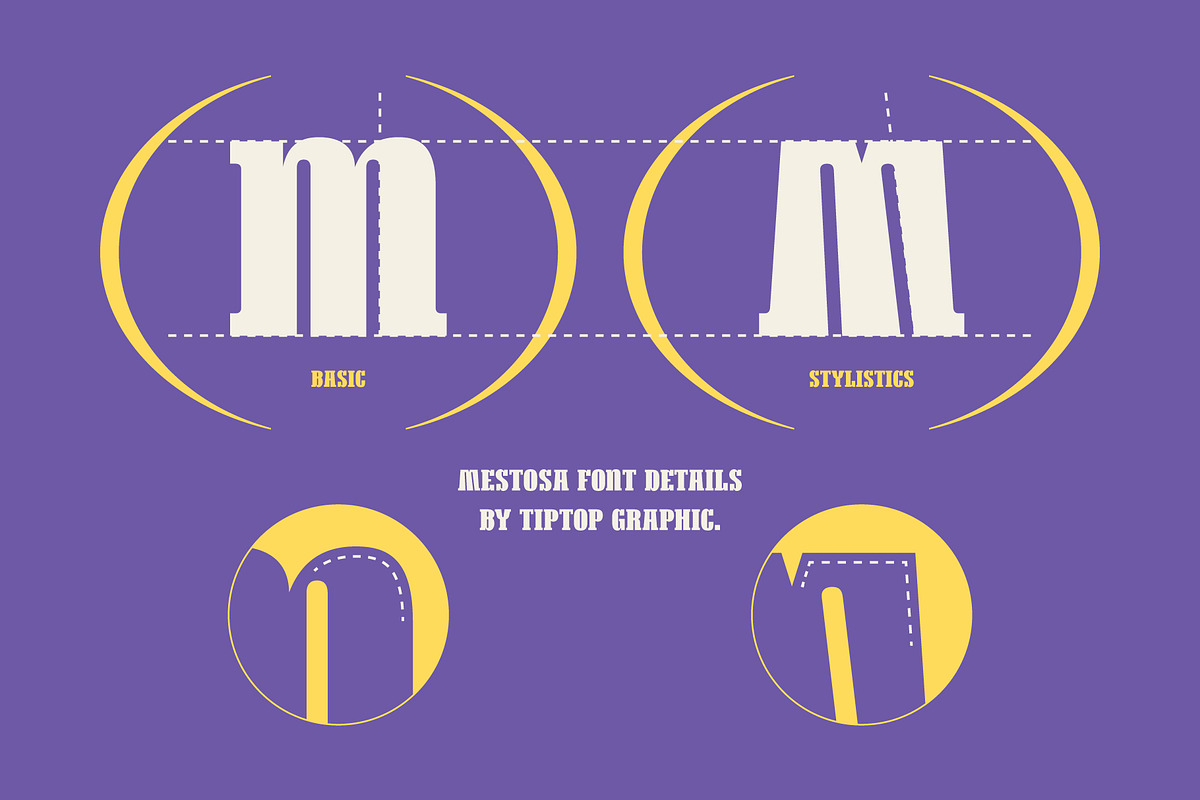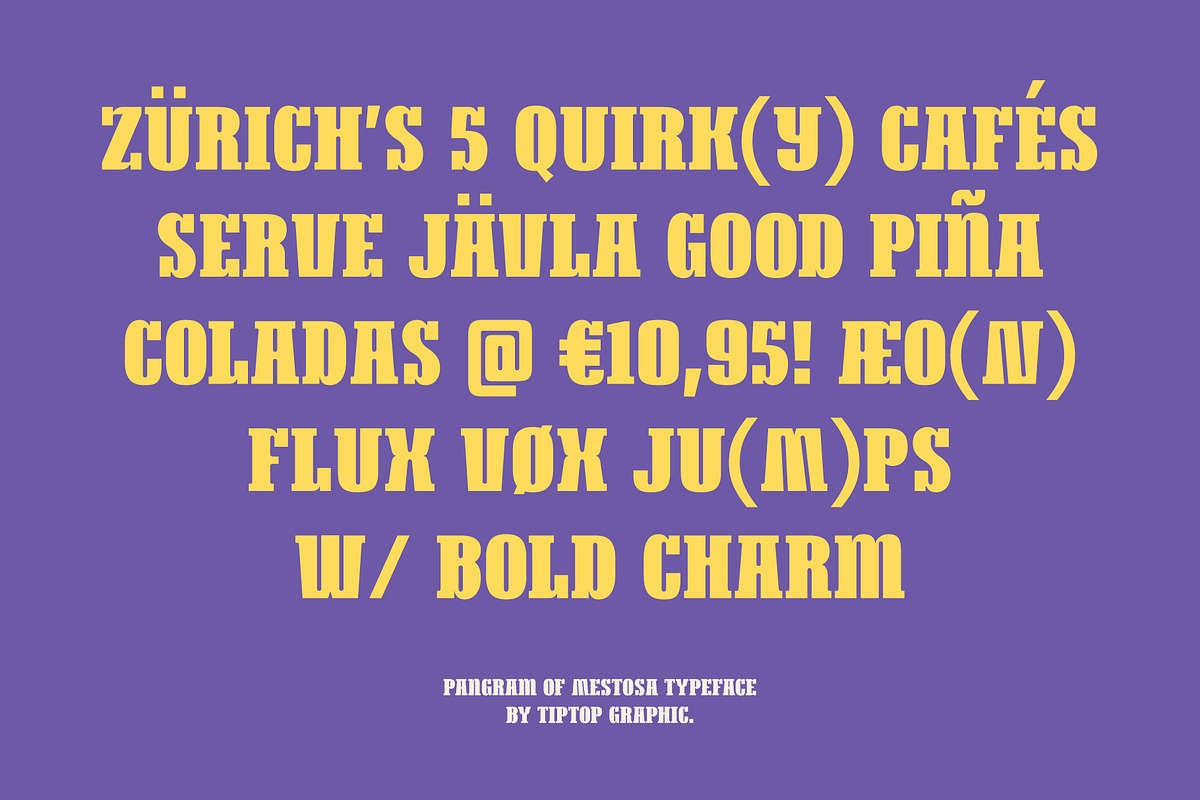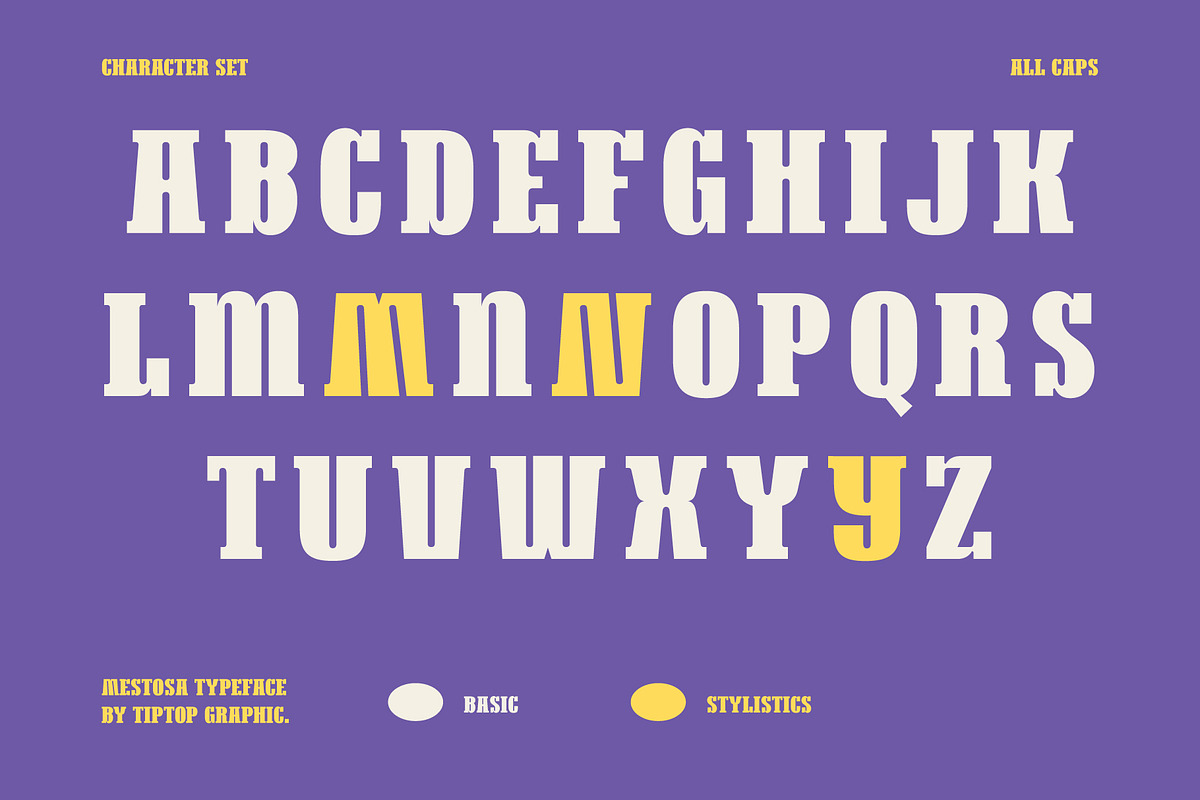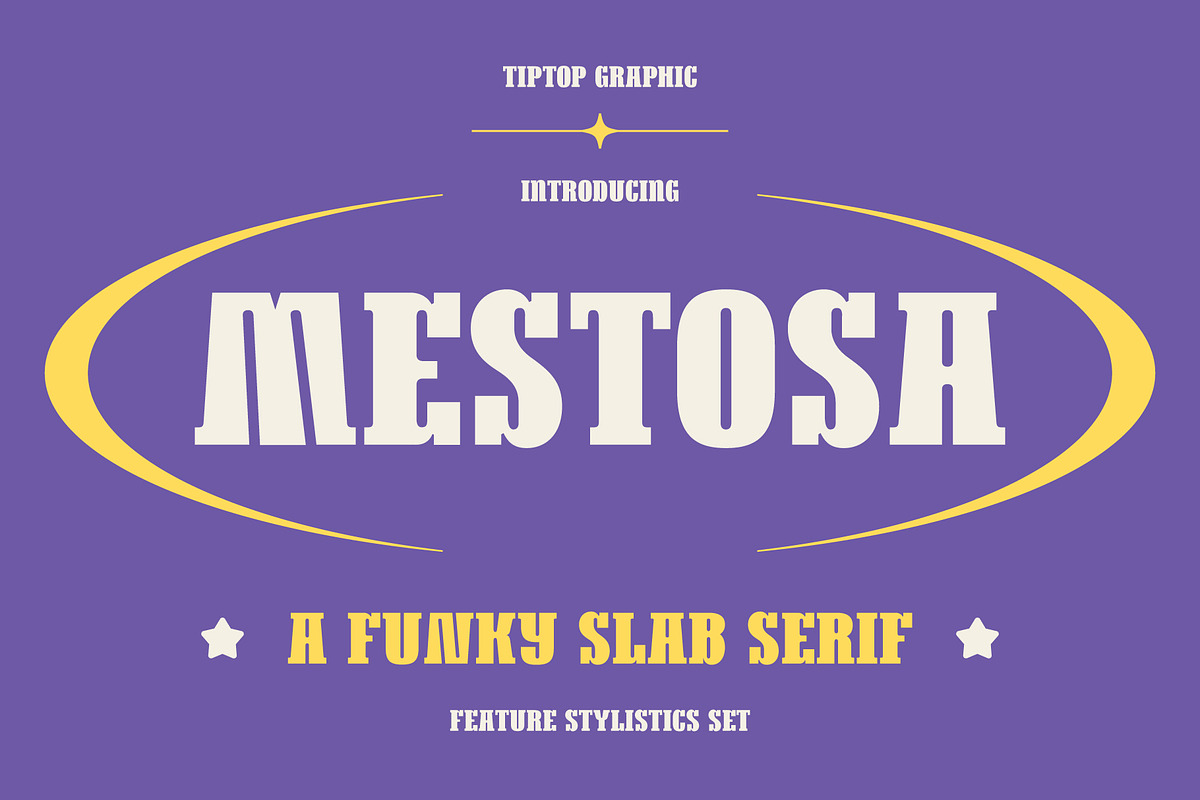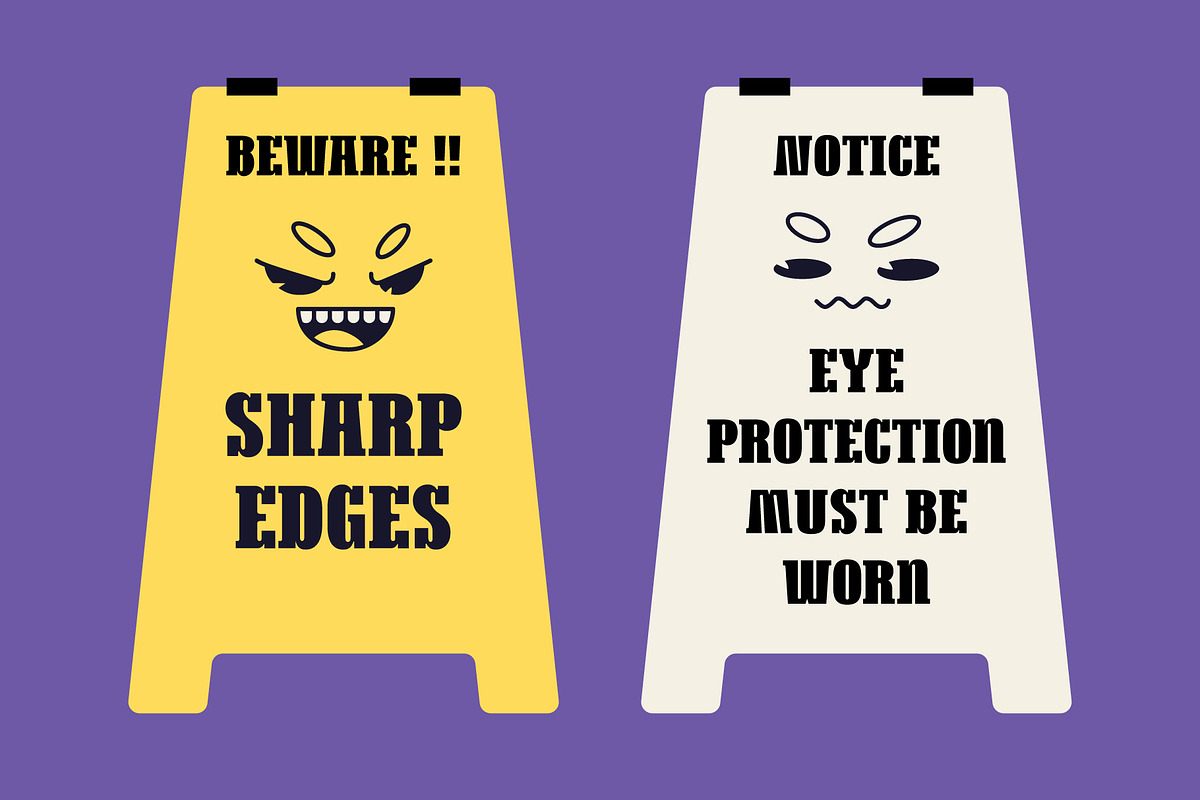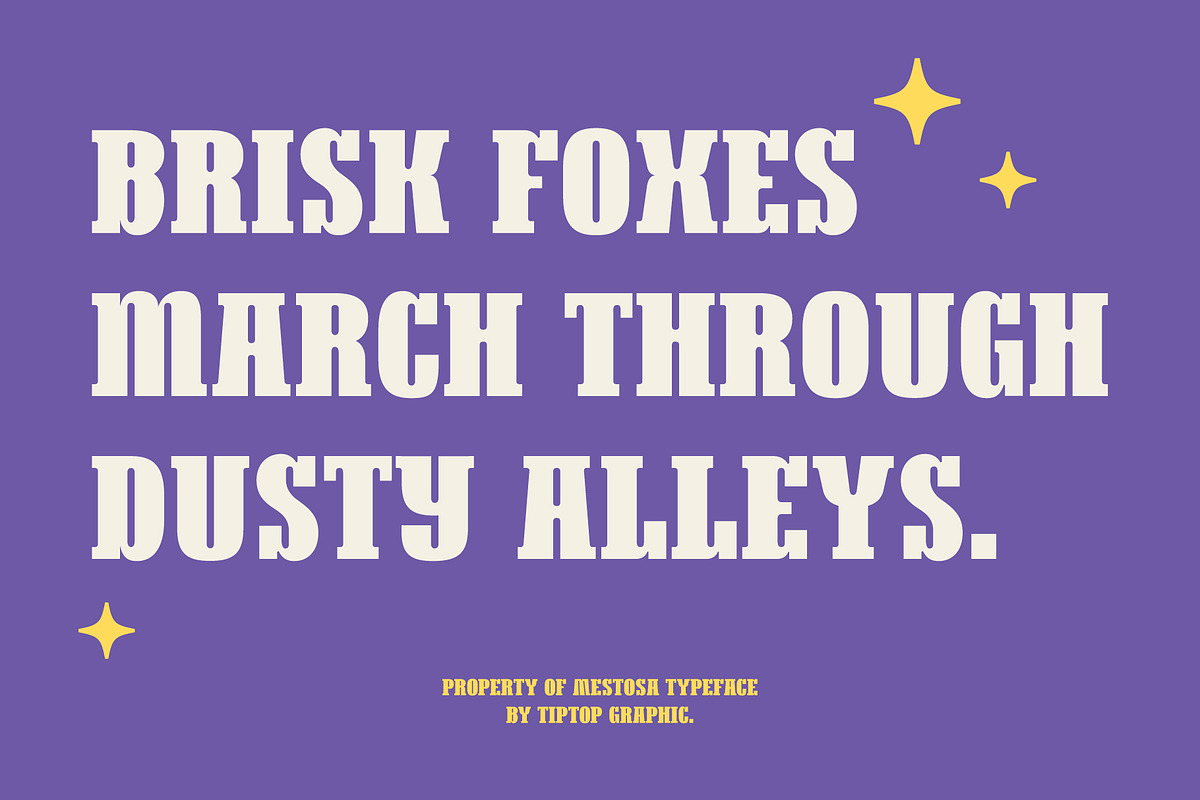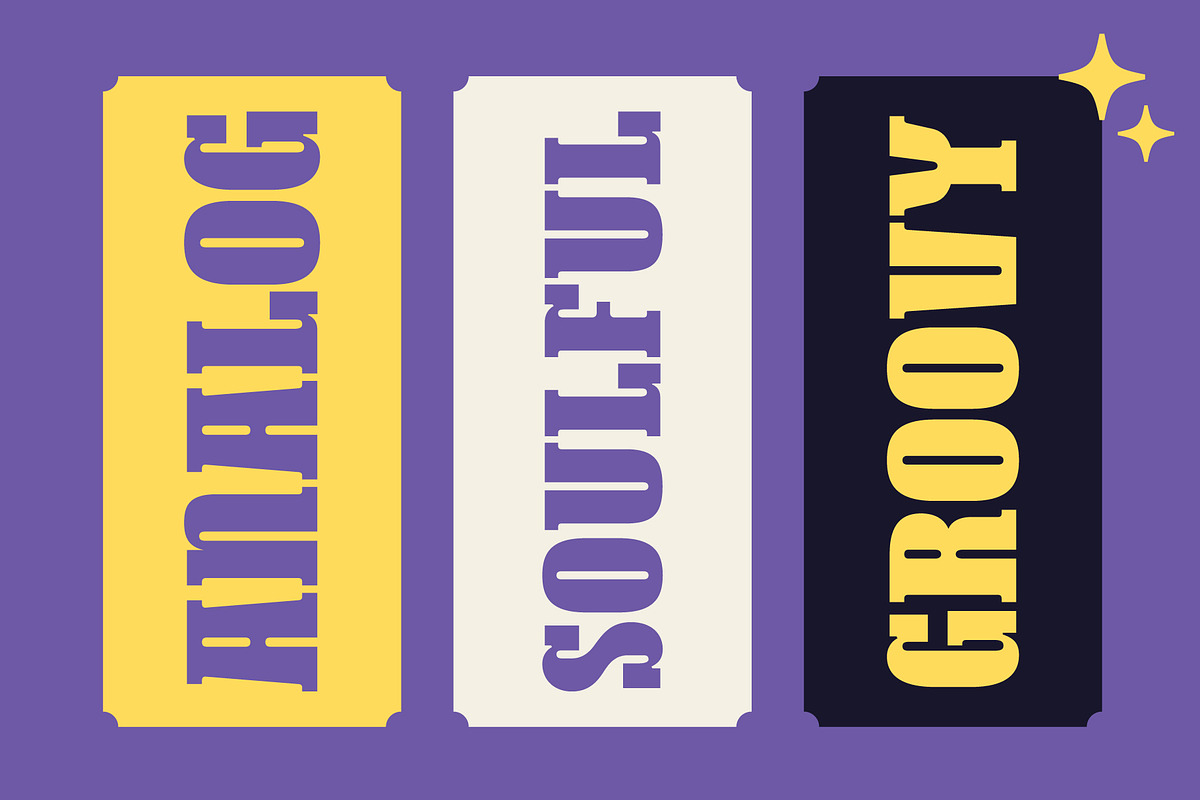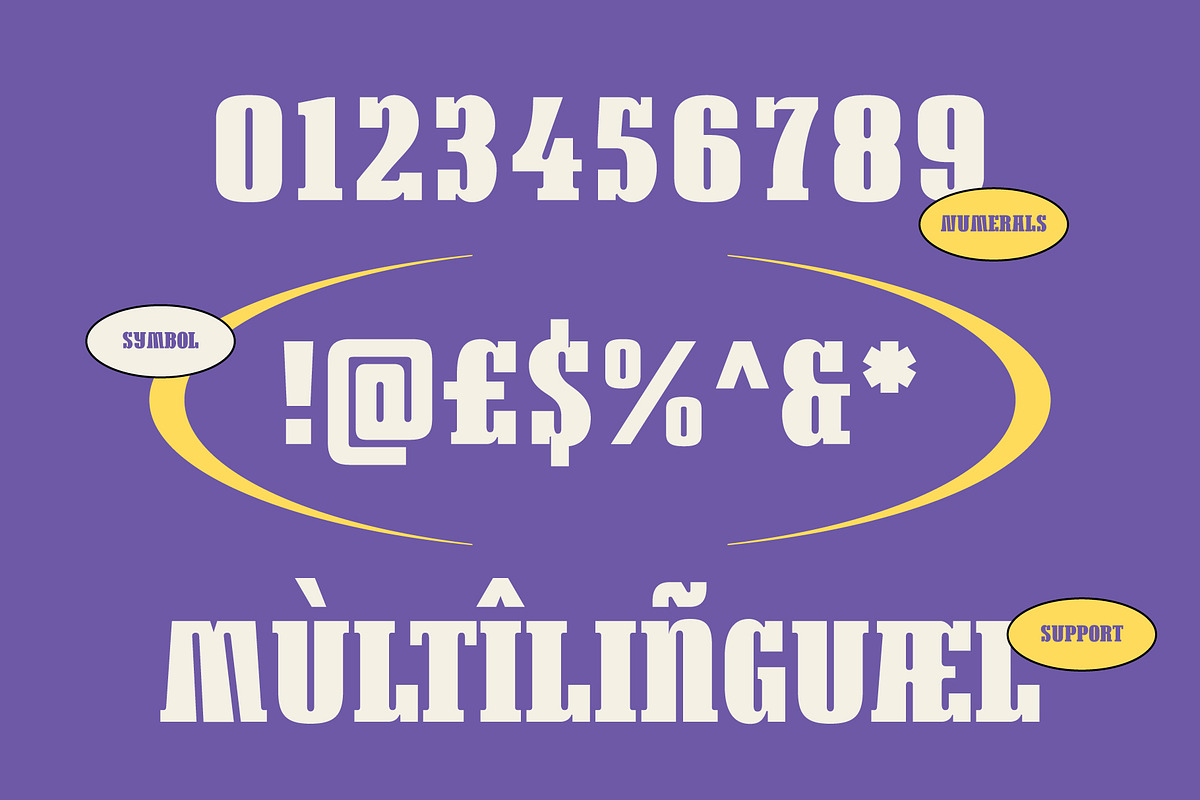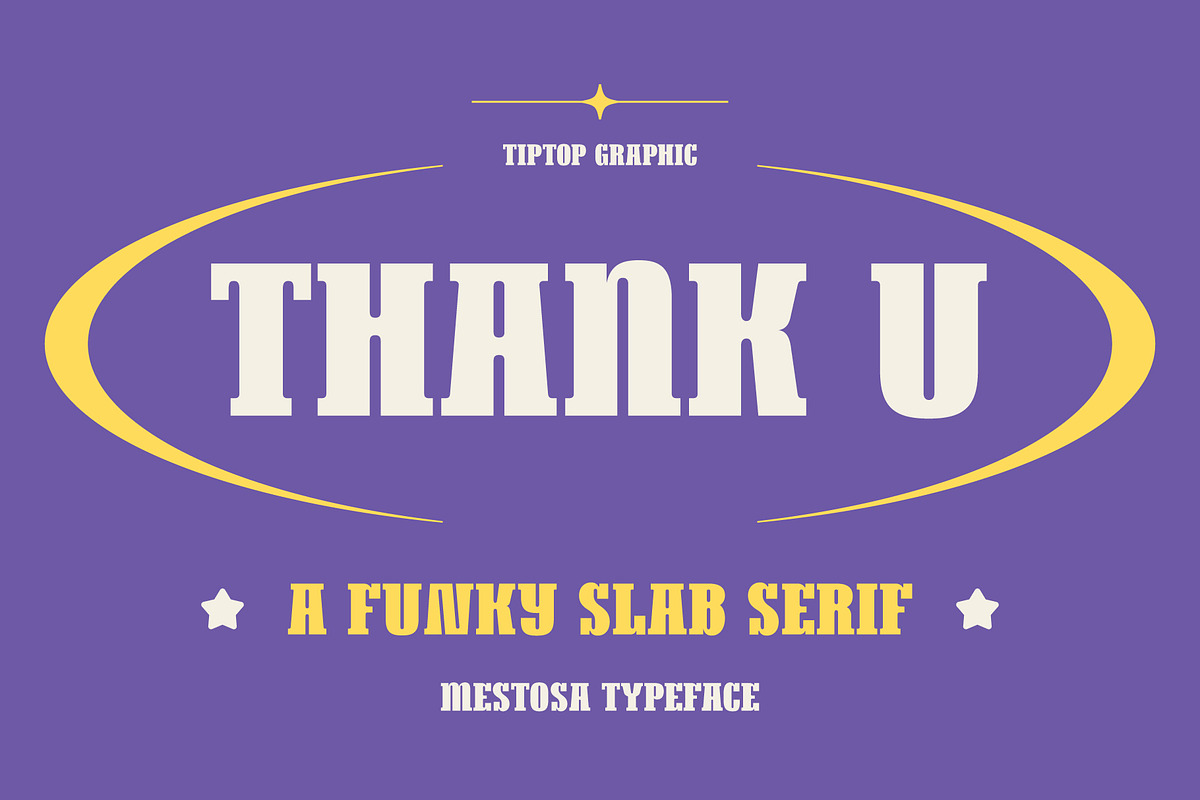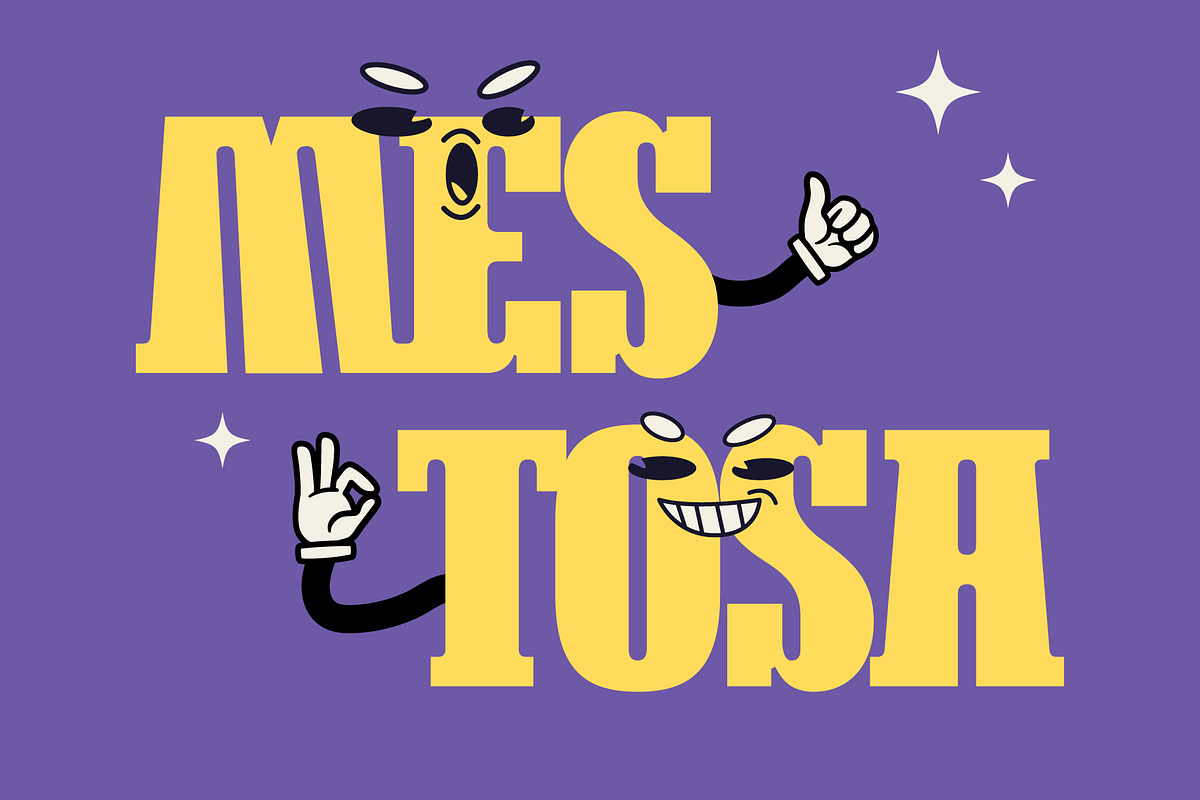
Mestosa - Funky Slab Serif
Mestosa – Funky Slab Serif
Mestosa is a bold and playful slab serif font that brings a funky twist to your designs. With its chunky serifs and lively curves, it’s perfect for eye-catching headlines, retro posters, branding, and anything that needs a touch of vintage flair with a modern attitude and funky slab serif style.
Mestosa – Funky Slab Serif Font features:
- All Caps
- Punctuation & Numbers
- Stylist Alternates